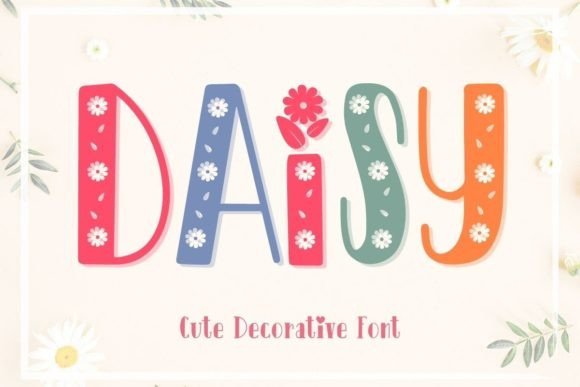
The Blooming Beauty of Design: Introducing the Daisy Font
Have you ever found yourself sitting at your desk, staring at a blank canvas, trying to come up with the perfect design to capture the essence of a season or occasion? It’s a feeling we’ve all been there, and it’s what makes the discovery of a new font so thrilling. For designers, the right font can be the spark that ignites a whole new world of creative possibilities.
Enter the Daisy Font, a charming decorative font that embodies the carefree spirit of a blooming flower. With its floral style and casual charm, this font is the perfect addition to any design project. Whether you’re crafting a festive Christmas design or creating a new logo for a brand, the Daisy Font is sure to add a touch of warmth and personality to your work.
Daisy Font Key Features
- Unique Characteristics: Daisy Font features a playful, modern design with rounded edges and a friendly feel, making it suitable for various applications, including digital and print media.
Daisy Font Review
I’ve had the chance to work with ‘Daisy Font’ and here’s my honest take.
- Friendly feel: Daisy Font has a charming, approachable vibe that makes it perfect for user interfaces, logos, and other applications where you want to create a sense of warmth and approachability.
- Legibility: The font is highly legible, making it a great choice for body text and other areas where readability is crucial.
- Playful versatility: Despite its playful feel, Daisy Font is surprisingly versatile and can be used in a wide range of applications, from children’s books to branding materials.
- Lack of sophistication: For more formal or high-end applications, Daisy Font might not be the best choice, as it can come across as a bit too playful or childish.
- No bold weight: One of the biggest limitations of Daisy Font is that it doesn’t have a bold weight, which can make it difficult to use in certain situations where you need a bold or heavy font.
Daisy Font is a delightful and charming font that’s perfect for a wide range of applications. While it may not be the best choice for every situation, it’s a great addition to any designer’s toolkit.
The Daisy font is commonly used in:
- Home decor and craft projects
Tips for Getting the Most Out of the Daisy Font
Alternatives to Daisy Font
Playfair Display is an elegant and luxurious script font, perfect for titles and headings. It has a high-end feel and is ideal for high-end branding and luxury products. Compared to Daisy Font, Playfair Display has a more sophisticated and refined look, making it suitable for high-end designs.
Great Vibes is a modern and elegant script font, great for titles and headings. It has a friendly and approachable feel, making it suitable for a wide range of designs. Compared to Daisy Font, Great Vibes has a more relaxed and casual look, making it perfect for creative and artistic projects.
Carolyna Pro is a modern and elegant script font, perfect for titles and headings. It has a high-end feel and is ideal for luxury branding and high-end products. Compared to Daisy Font, Carolyna Pro has a more refined and sophisticated look, making it suitable for high-end designs.